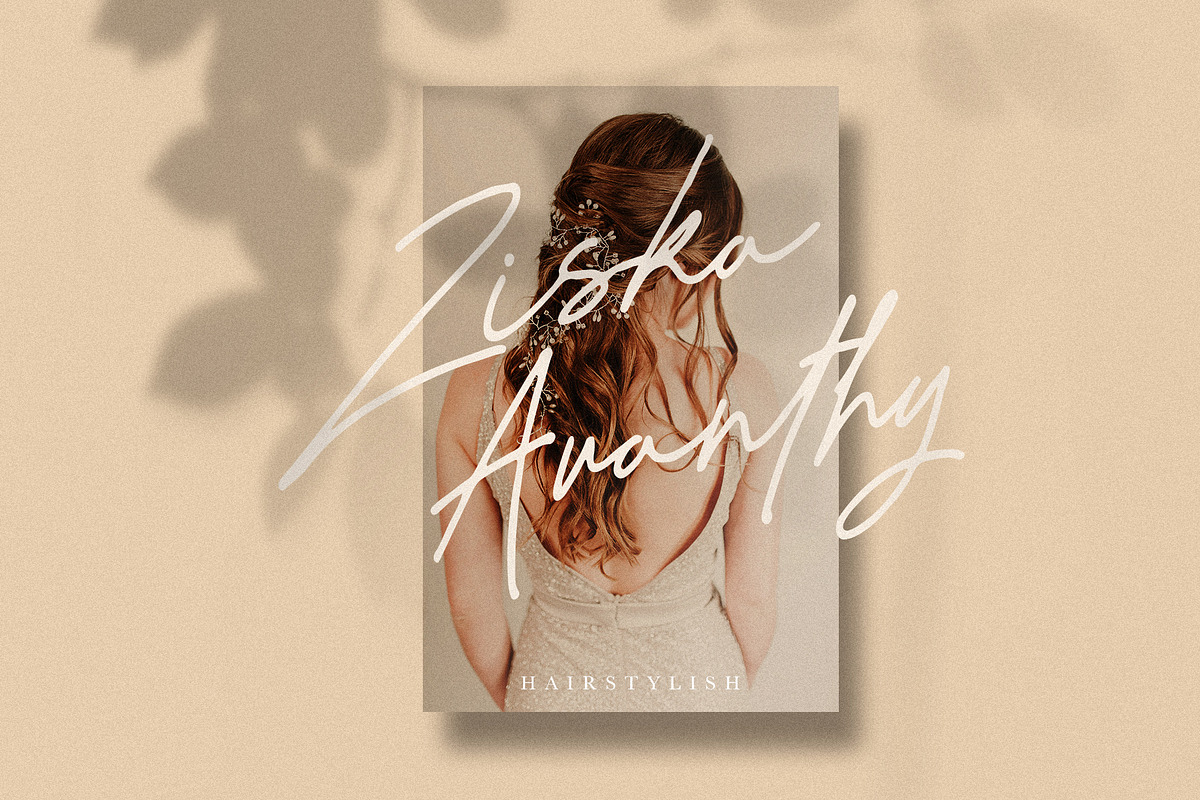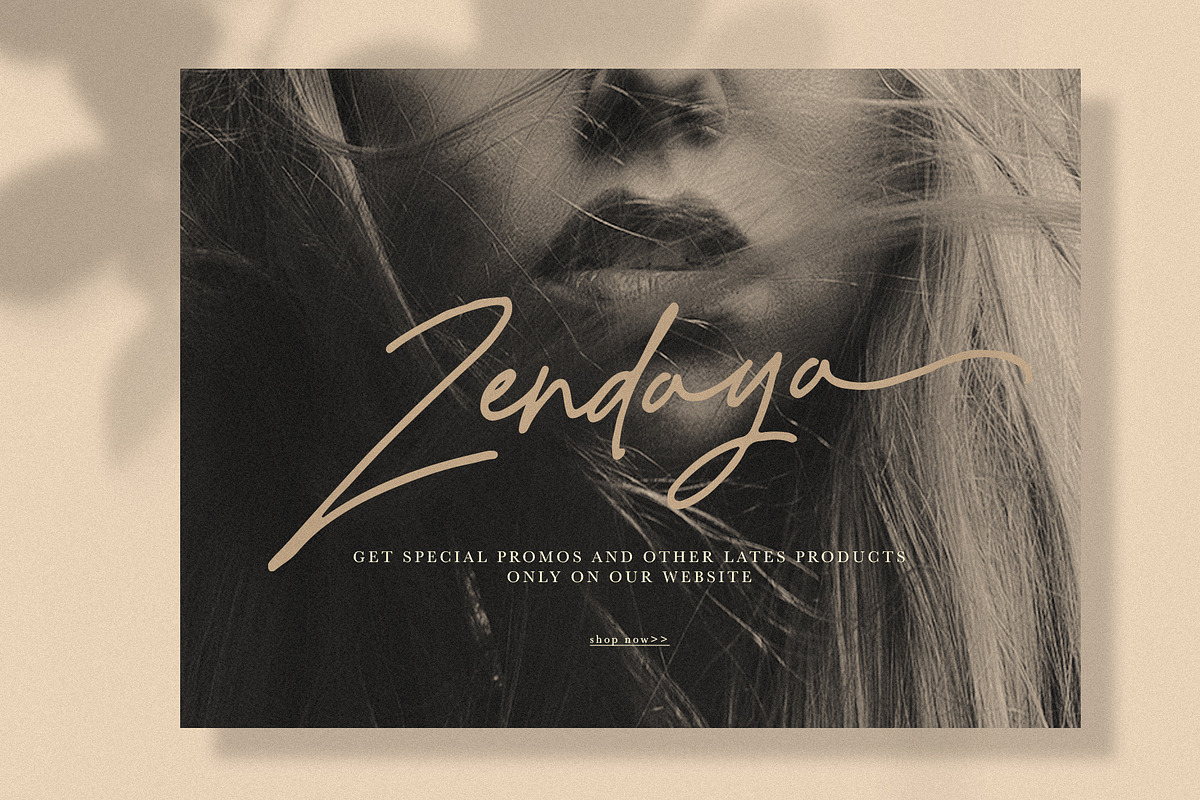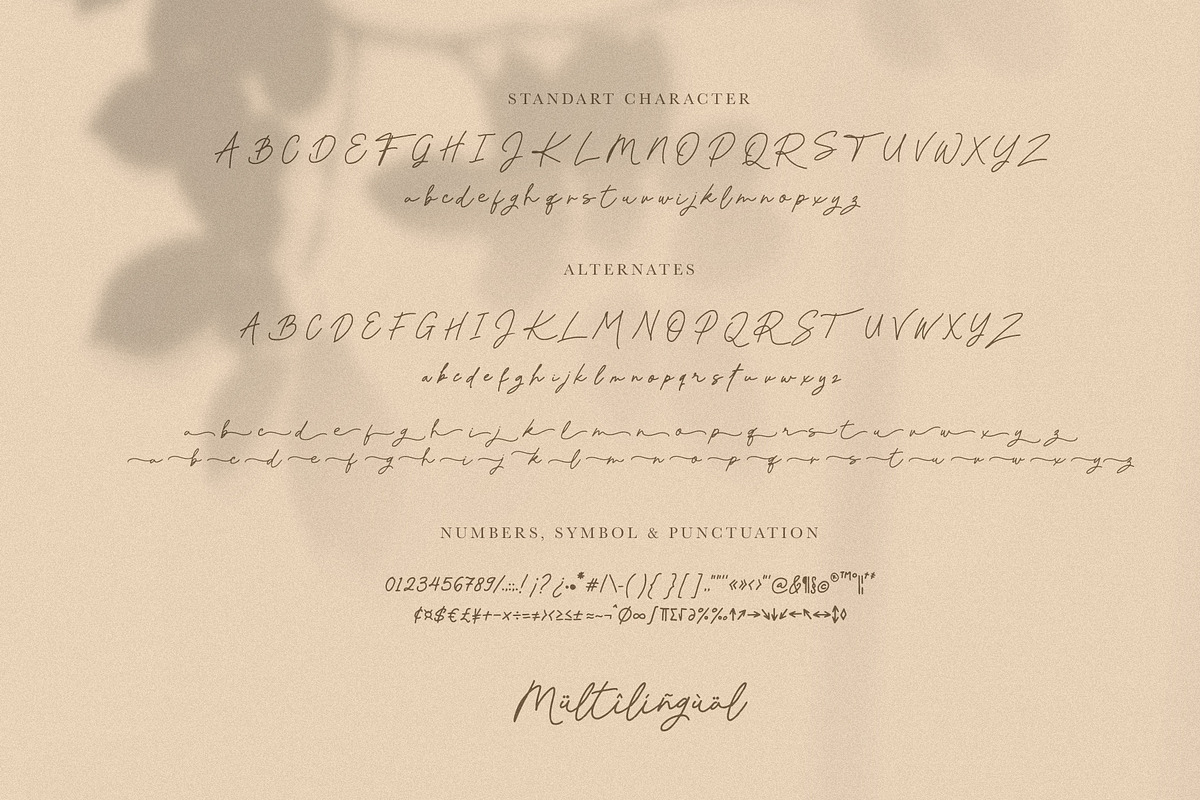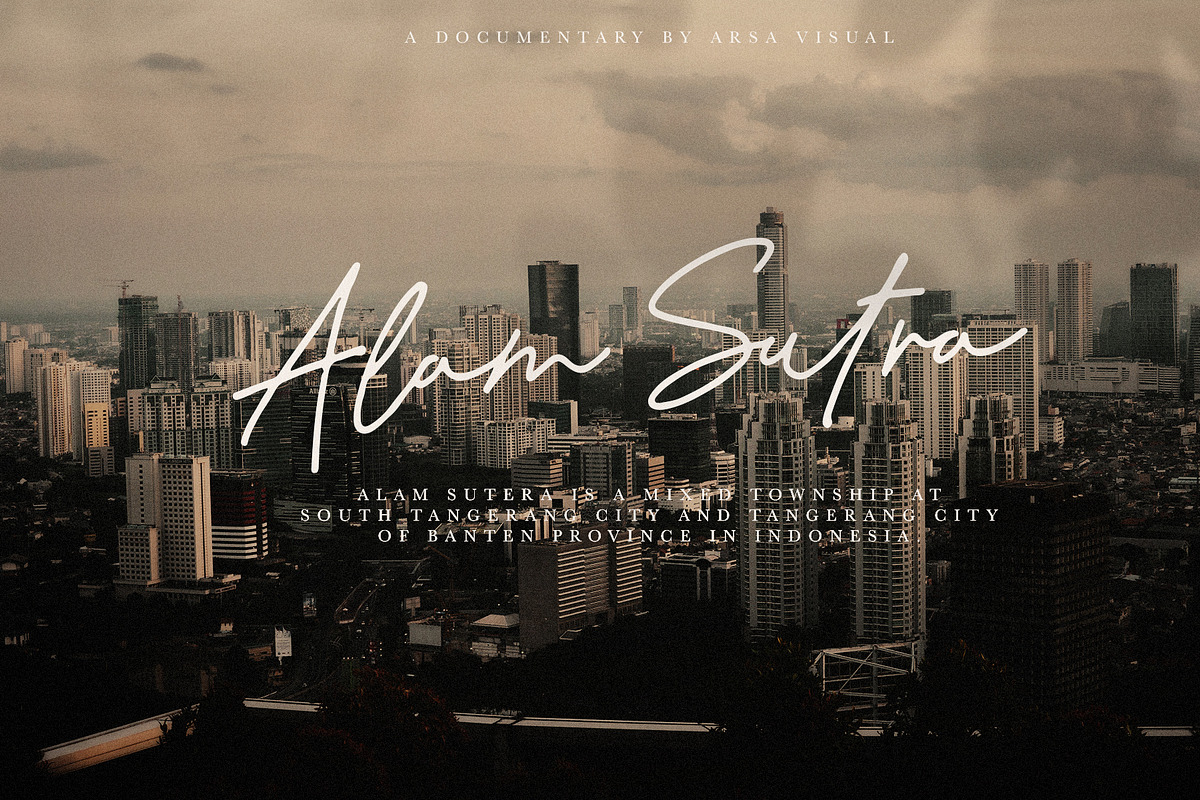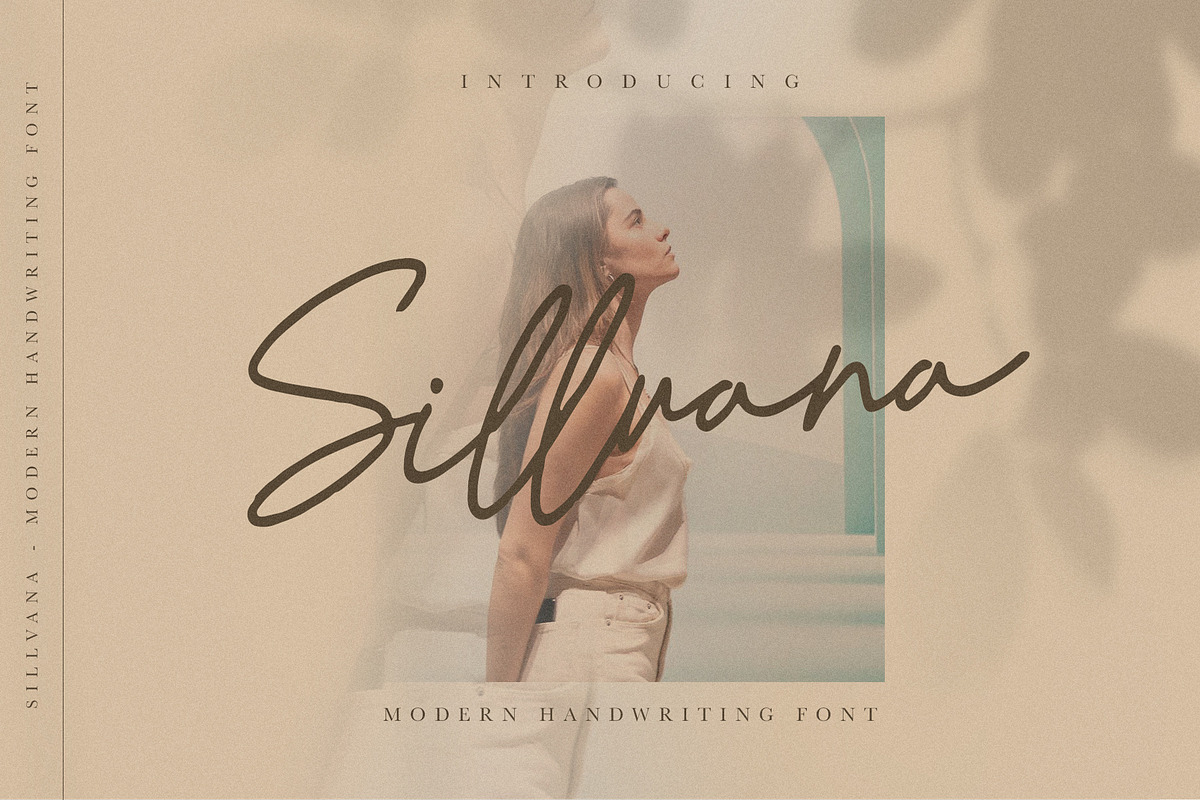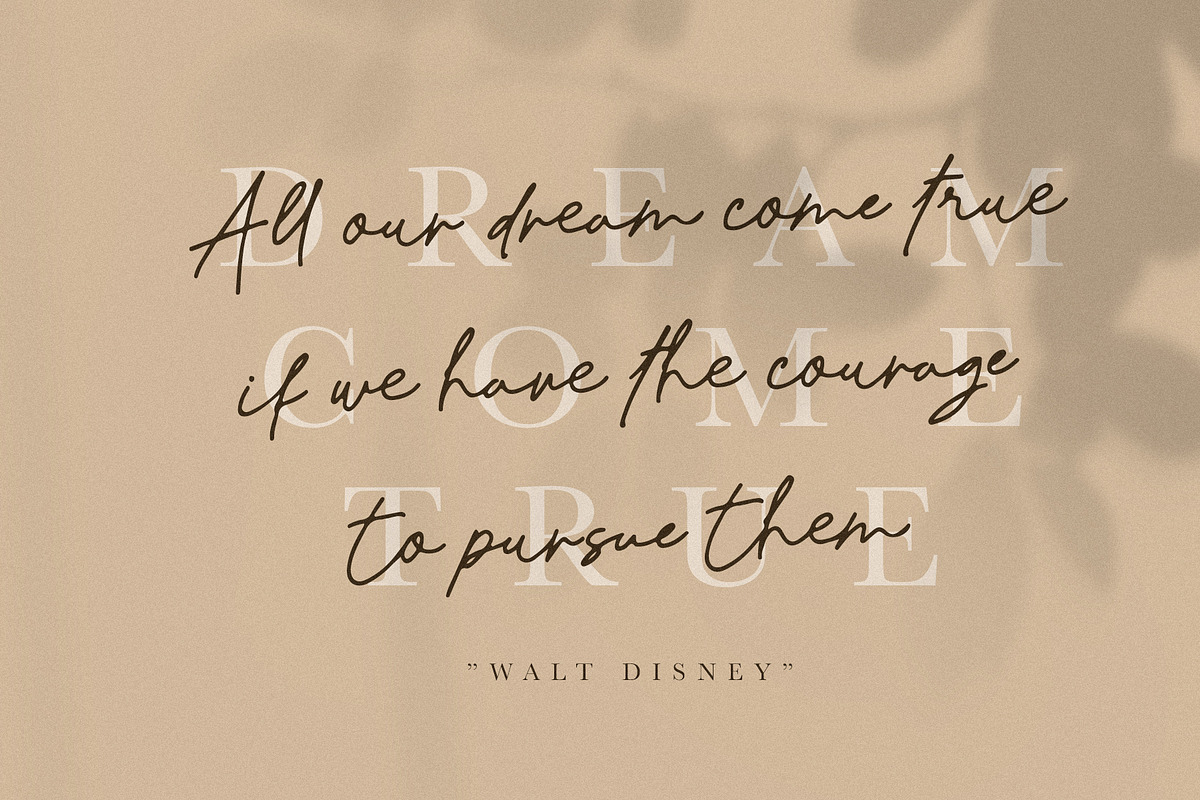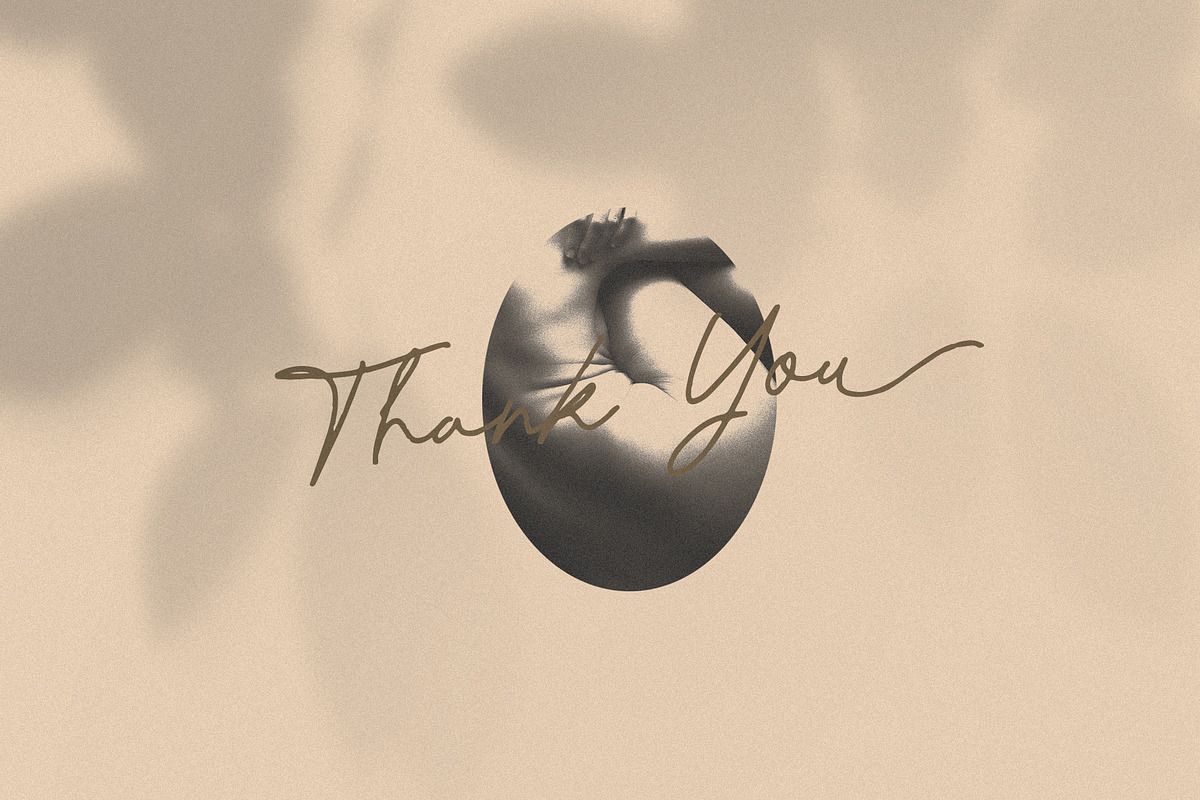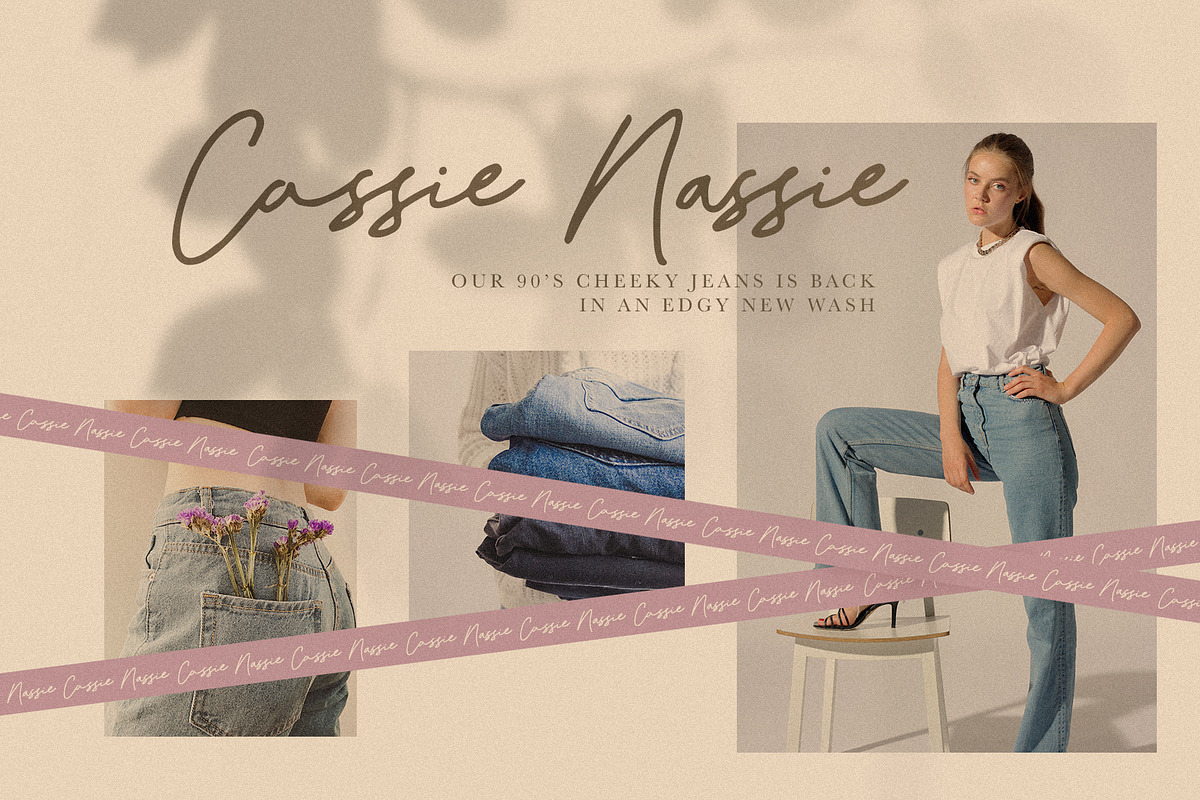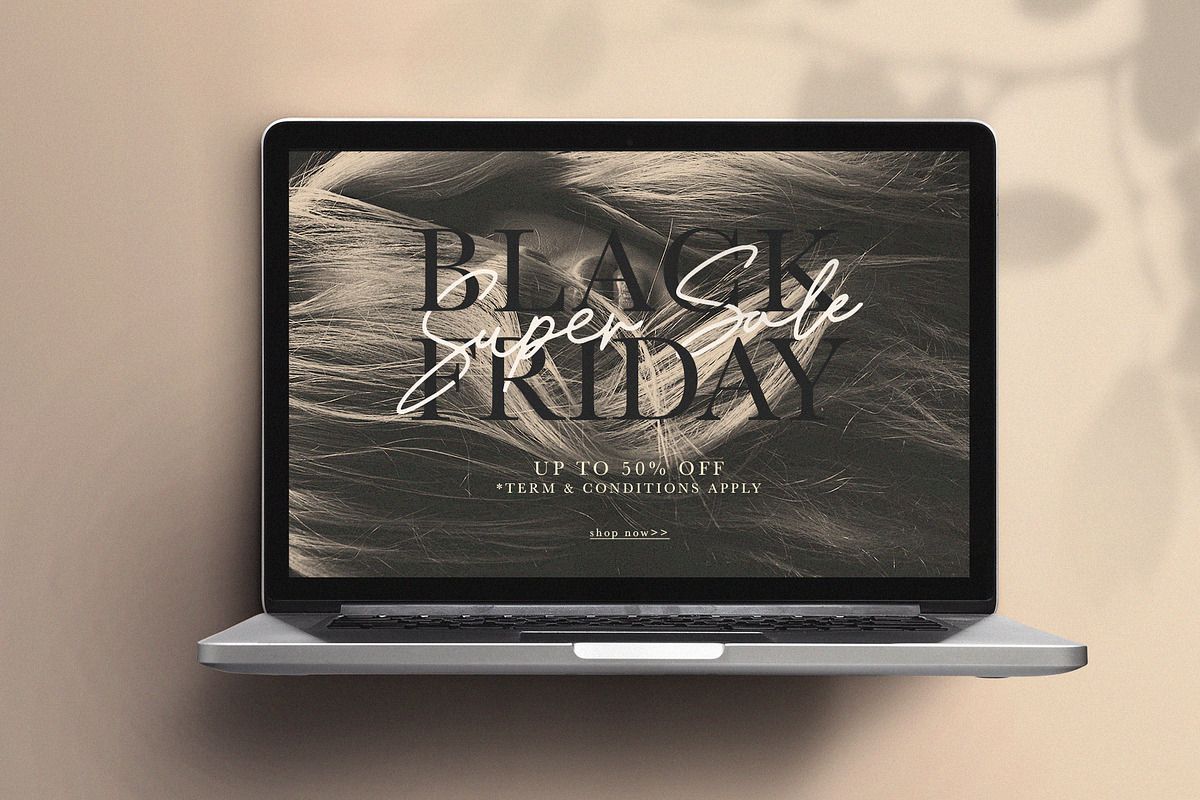
Sillvana - Modern Handwriting
Sillvana is a modern handwritten scripts font. A little bit classy, this font will look outstanding in any occasion design concept, whether it’s being used on colorful backgrounds or as a stand as a headline in the minimalist background!
This ferfect for : elegant branding, wedding stationery, poster, romantic book cover designs, classy packaging, album covers, handwritten quotes, greeting cards, unique social media posts, and so much more.
Sillvana has alternative uppercase and lowercase letters that you can change by selecting the letter you want to change, and automatically there is an option to change the letters under the letter you selected.